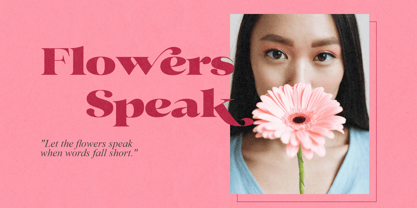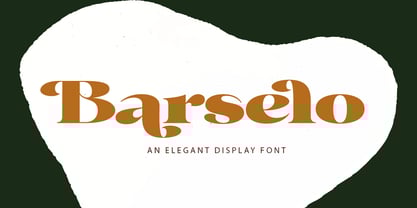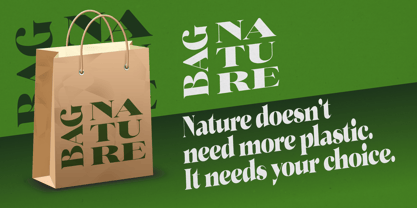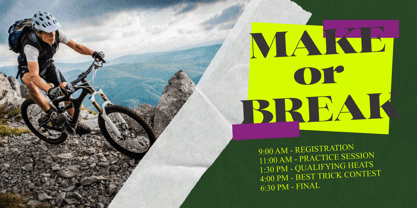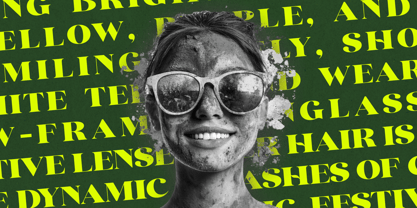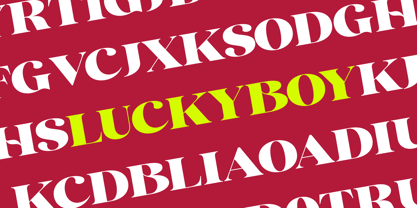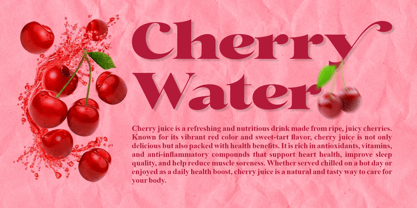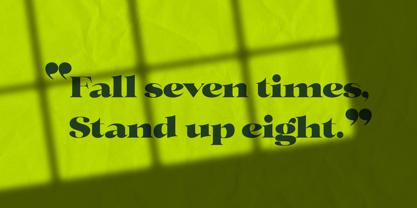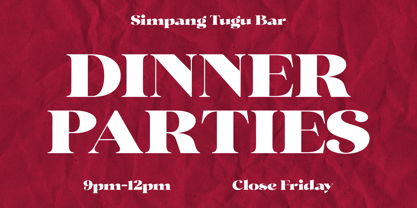
Barselo
by Gatype
The Barselo Font Family was designed by khaidir and published by Gatype. Barselo contains 2 styles and family package options.
Barselo is a classy and modern typeface. A beautiful and bold look that is designed specifically for display. Inspired by modern fashion and classic typography, this font features many alternate characters and ligatures.
The Barselo typeface symbolizes luxury, elegance, opulence, fashion, and wealth. This font is perfect for logos, invitations, cards, magazines, apparel, fashion, lifestyle, posters, social media kits, and more!